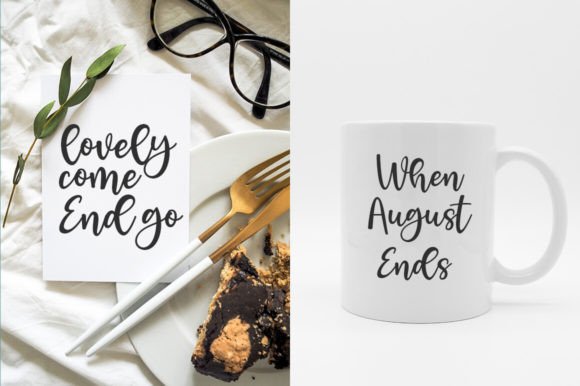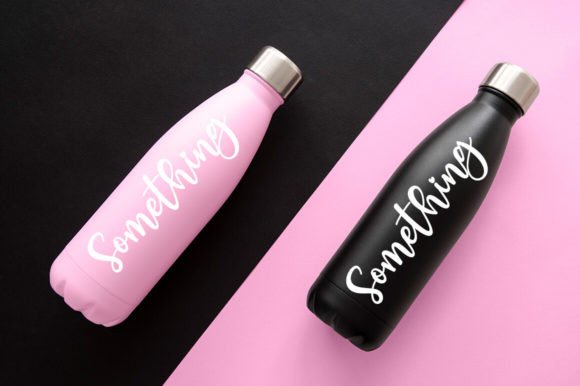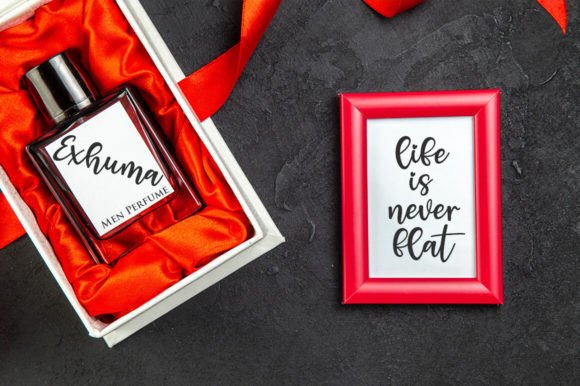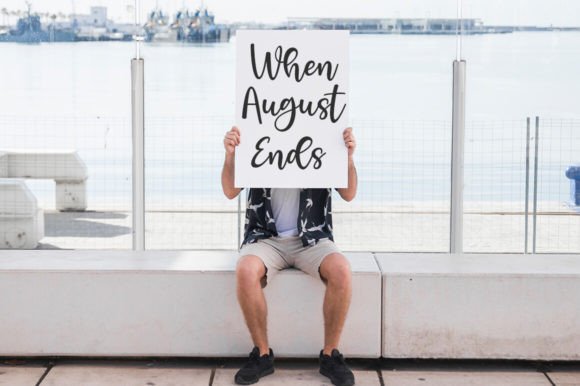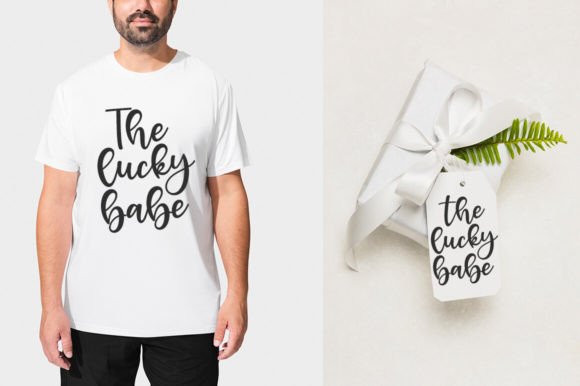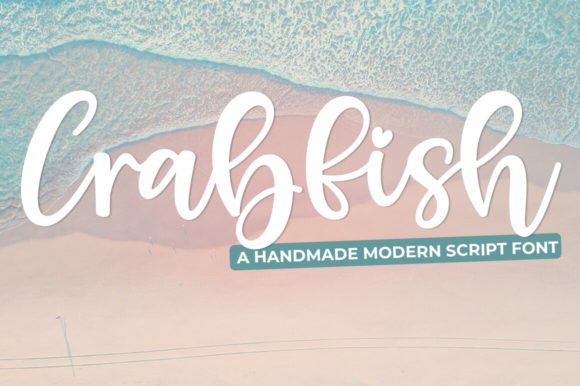
Introducing the Versatile Crabfish Script: Elevate Your Design with Elegance
In the world of typography, few fonts manage to strike a balance between casual elegance and artistic flair. The Crabfish Script is one such marvel, a contemporary calligraphic font that is redefining the boundaries of creative expression. Whether you’re a designer looking for a unique touch or a crafter seeking to add a personal flair to your projects, the Crabfish Script is an indispensable tool in your arsenal.
Aesthetic Appeal and Versatility
The Crabfish Script boasts a breezily casual yet sophisticated charm that can instantly elevate the visual appeal of any design. Its elegance lies not just in its fluid strokes and harmonious letterforms but also in its exquisite swashes. These decorative elements add a touch of grandeur and personality to your work, making it stand out in a sea of generic fonts.
The versatility of the Crabfish Script is perhaps its most impressive feature. It’s a font that can seamlessly transition across various applications, making it a favorite among designers and crafters. From the visual branding of logos to the allure of product packaging, from romantic wedding invitations to compelling book covers, this font brings a level of sophistication and charm that is hard to replicate.
Applications of Crabfish Script
The applications of the Crabfish Script are as varied as they are impressive:
- Logos: Give your brand a unique identity with a logo that exudes elegance and professionalism.
- Product Packaging: Make your products stand out on the shelves with packaging that captivates and intrigues.
- Wedding Invitations: Add a romantic touch to your wedding invitations, setting the tone for a memorable event.
- Branding: Enhance your branding efforts with a font that communicates sophistication and style.
- Headlines: Dominate the headlines with a font that grabs attention and leaves a lasting impression.
- Signage: Make your signage striking and noticeable, perfect for businesses and events.
- Labels: Create distinctive labels that reflect your brand’s personality and ethos.
- Signatures: Add a personal touch to your signatures, making them unique and memorable.
- Book Covers: Create compelling book covers that capture the essence of your story.
- Poster Design: Stand out in poster design with a font that breathes life into your messages.
- Quotes: Give your favorite quotes a new lease on life with a presentation that’s both elegant and impactful.
Why Choose Crabfish Script?
The Crabfish Script is not just another font; it’s a statement piece in your design toolkit. Here are a few reasons why it stands out:
- Contemporary yet Timeless: While it’s firmly rooted in modern design principles, the Crabfish Script also possesses a timeless quality that ensures your work remains relevant for years to come.
- Ease of Use: Despite its sophisticated appearance, the Crabfish Script is remarkably easy to use, making it accessible to designers and crafters of all skill levels.
- Customization: With its swashes and versatile design, the Crabfish Script offers ample opportunities for customization, allowing you to put your personal stamp on any project.
The Crabfish Script is a marvel of modern script design, offering a perfect blend of elegance, versatility, and creativity. Whether you’re looking to make a statement with your branding, add a touch of romance to your wedding invitations, or simply explore new avenues of creative expression, this font is sure to exceed your expectations. With the Crabfish Script, the possibilities are endless, and the impact is undeniable. Elevate your designs with a font that is not just a typeface but a form of artistry.